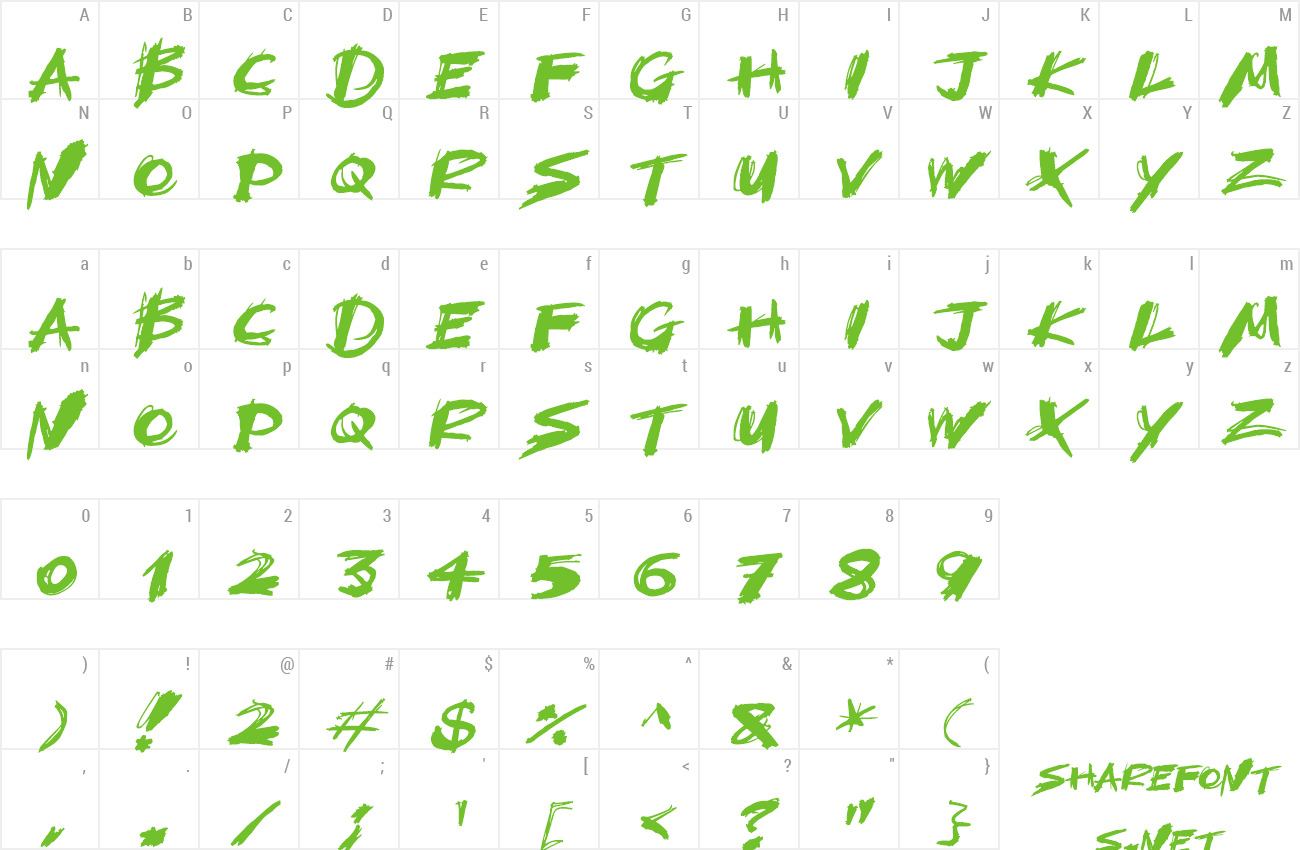
Bad Brush Regular Font
Bad Brush Regular Font - This font features a bold, expressive brush style that exudes energy and creativity. This font, created by darrell flood, is free to use for personal use (tho i appreciate.